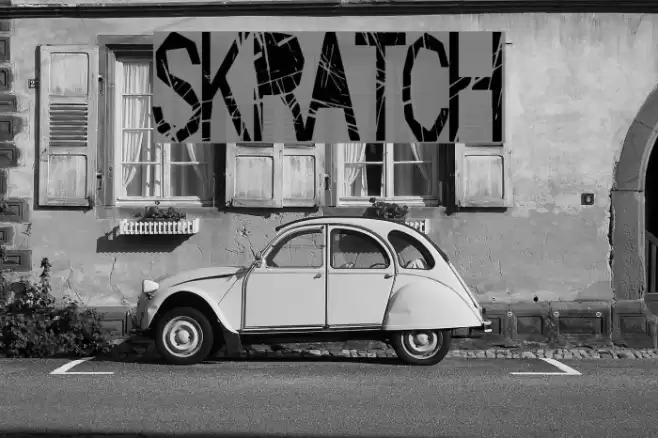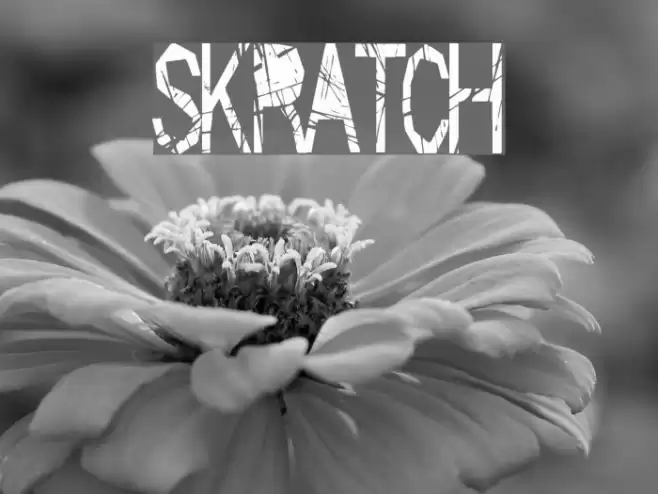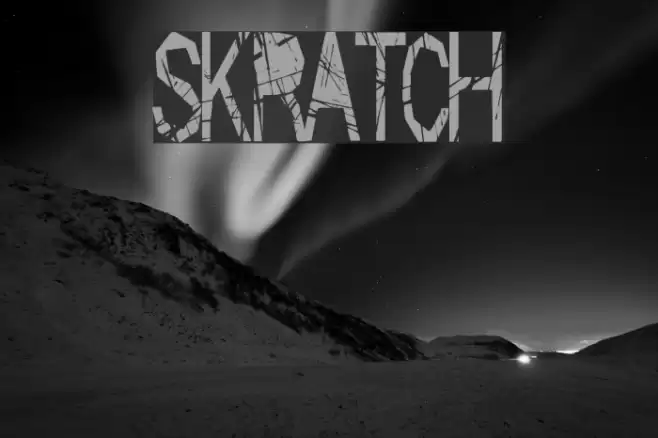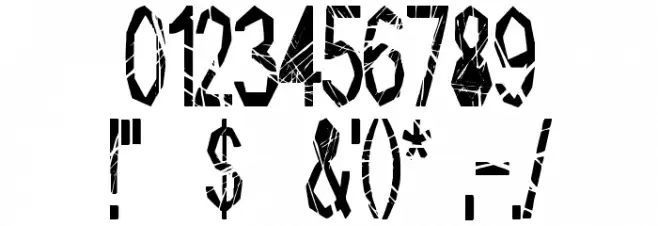
Skratch Font
Skratch Description
This font features a highly distinctive and edgy design, characterized by a fragmented, scratched appearance that gives it a raw, distressed look. The uppercase and lowercase letters, as well as numbers and special characters, all share this unique style, making it ideal for projects that require a bold, unconventional aesthetic. The font's jagged edges and irregular shapes create a sense of movement and energy, perfect for grabbing attention. Its chaotic yet structured form makes it suitable for modern and urban-themed designs, where a touch of rebellion or grunge is desired.
A bold, distressed font with a fragmented, edgy appearance from Uncategorized fonts.
- Proposed Projects: Ideal for album covers, streetwear branding, event posters, and edgy digital art.
- Overall Style: Modern, Grunge